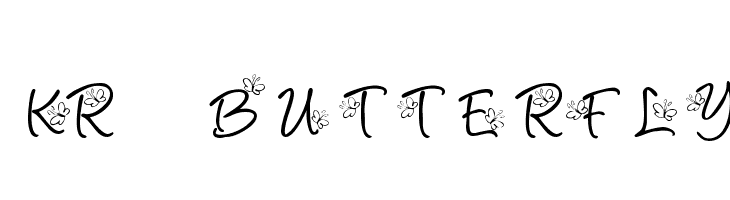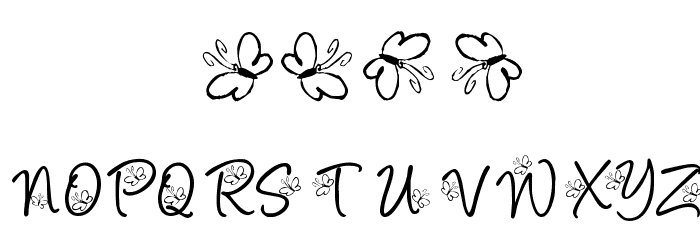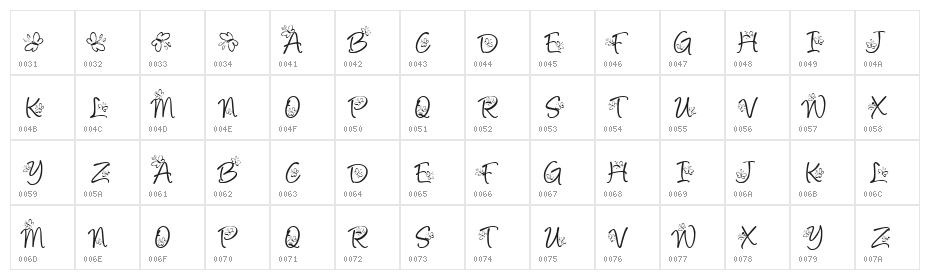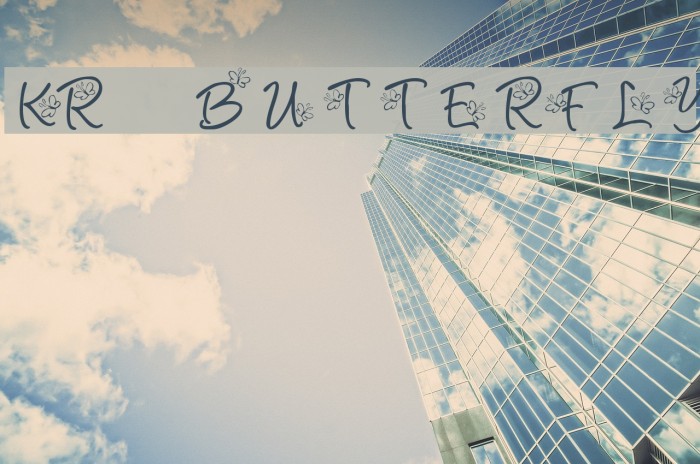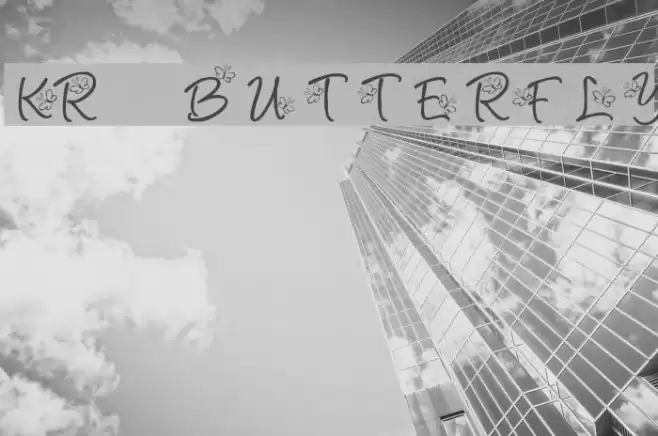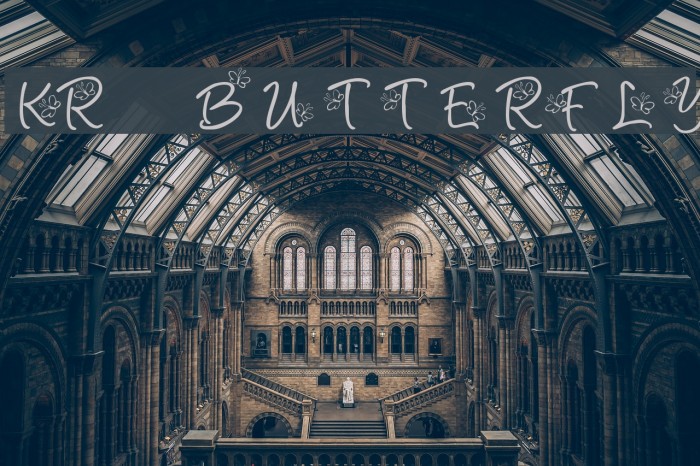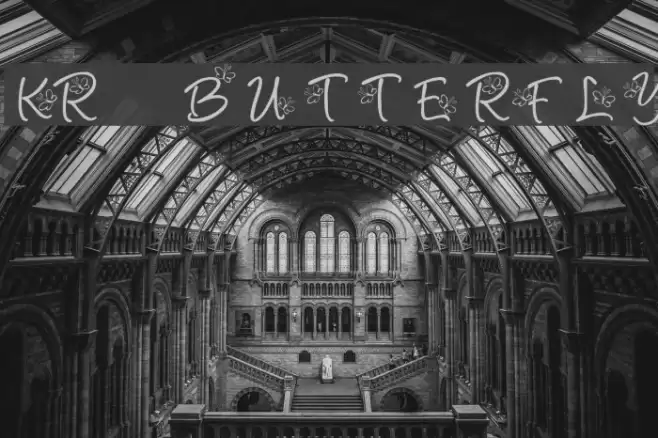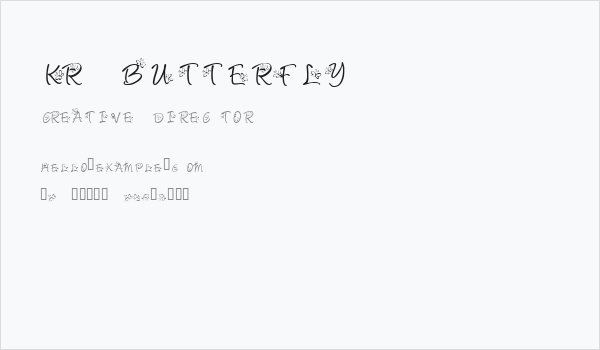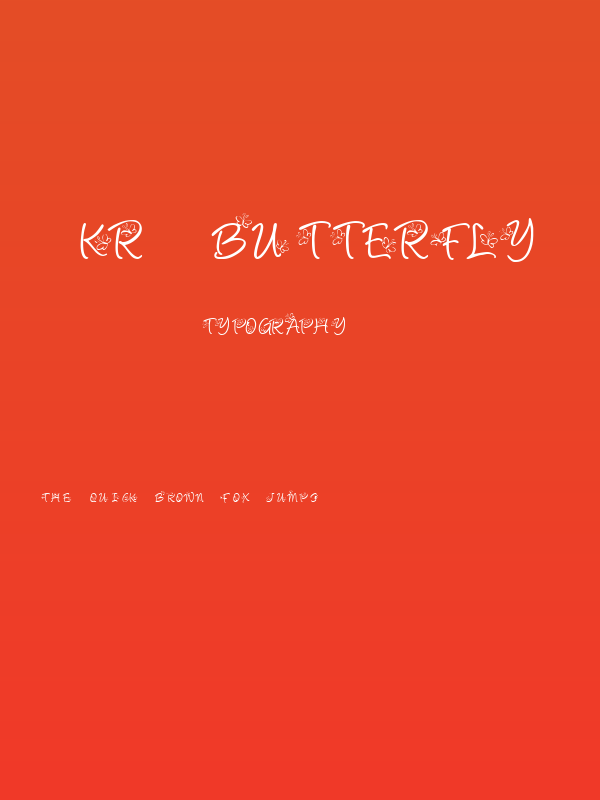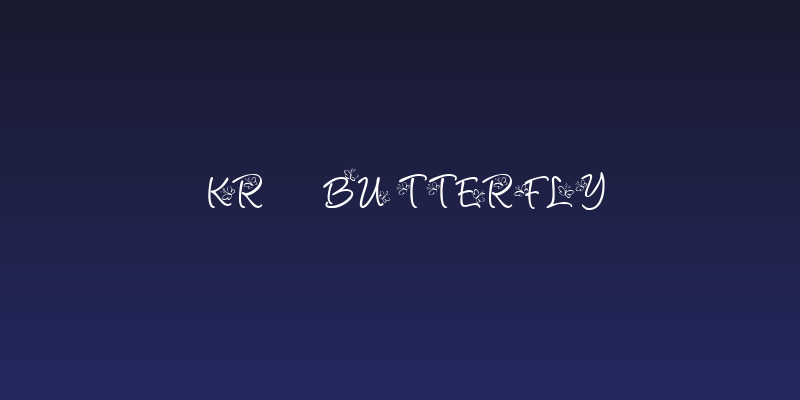
KR Butterfly Font
KR Butterfly Description
This whimsical font features elegant, flowing letters adorned with delicate butterfly motifs. Each character is crafted with a playful yet sophisticated style, incorporating intricate butterfly designs that add a touch of nature-inspired charm. The font maintains a consistent stroke width, providing a balanced and harmonious appearance. Its decorative elements make it ideal for projects that require a unique and artistic flair, such as invitations, greeting cards, or branding materials that aim to convey creativity and elegance.
| Proposed Projects | Ideal for invitations, greeting cards, branding materials, and creative projects. |